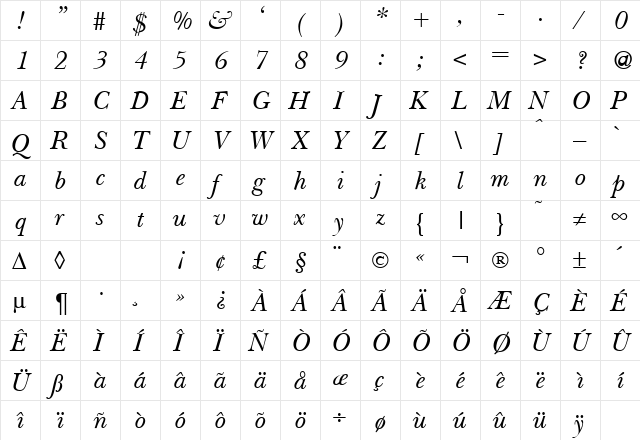
BaskervilleNovaTwo RegularItalic Font Preview
BaskervilleNovaTwo RegularItalic
Design Context for BaskervilleNovaTwo Typeface
BaskervilleNovaTwo takes a measured approach to typography — its balanced proportions and neutral character make it a reliable workhorse for both digital and print work. The slanted form adds forward momentum and visual energy.
Pro Tip: Use BaskervilleNovaTwo for emphasis, pull quotes, and subheadings where its slanted energy can add rhythm to the layout.